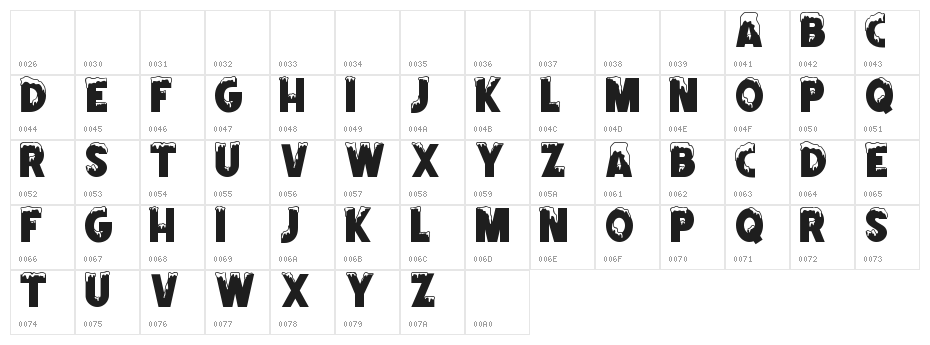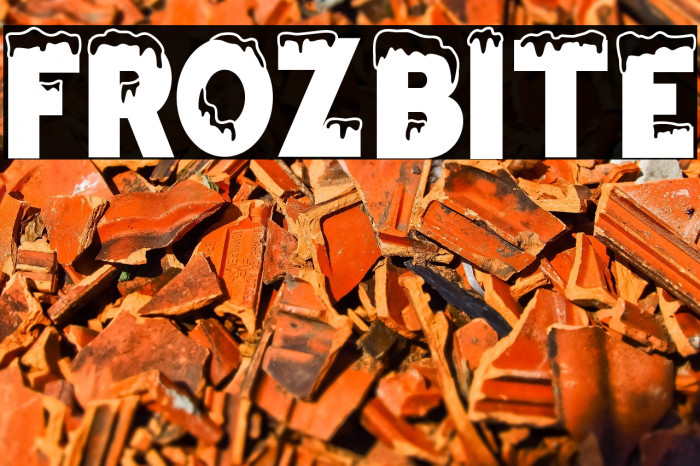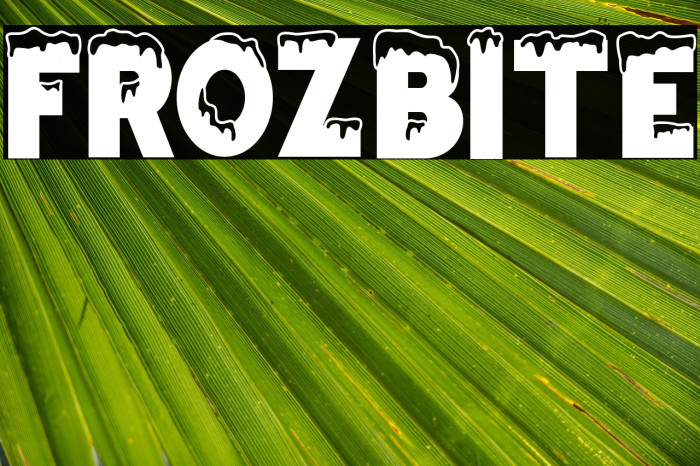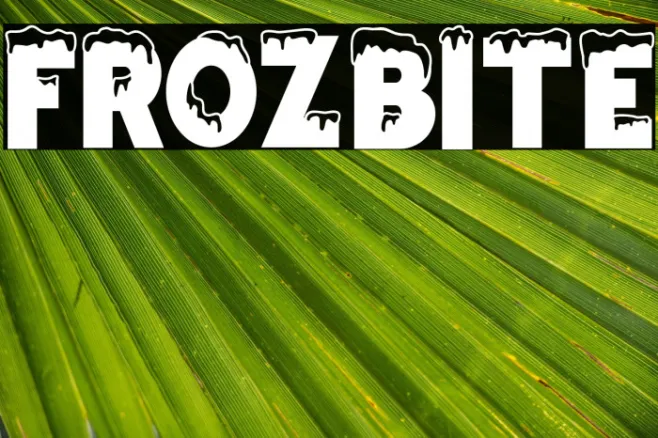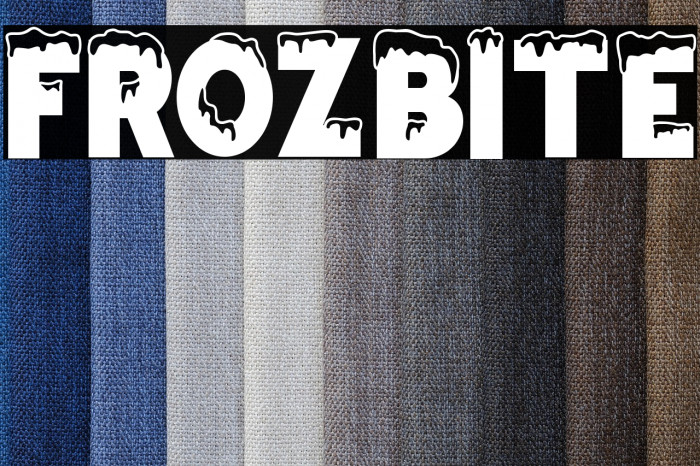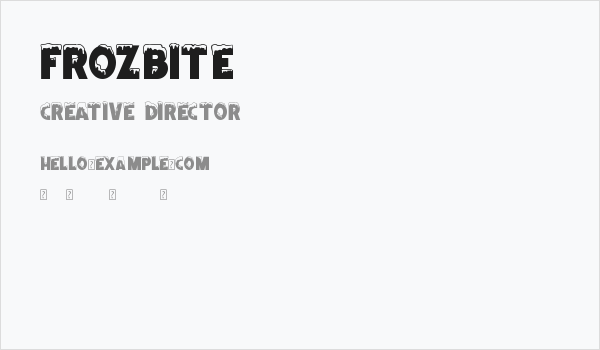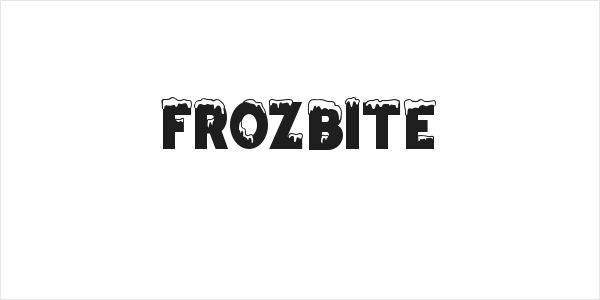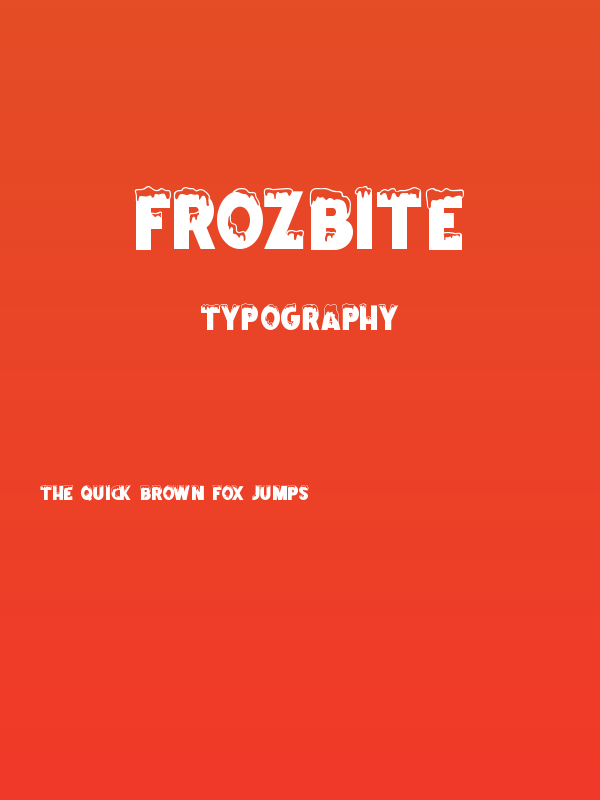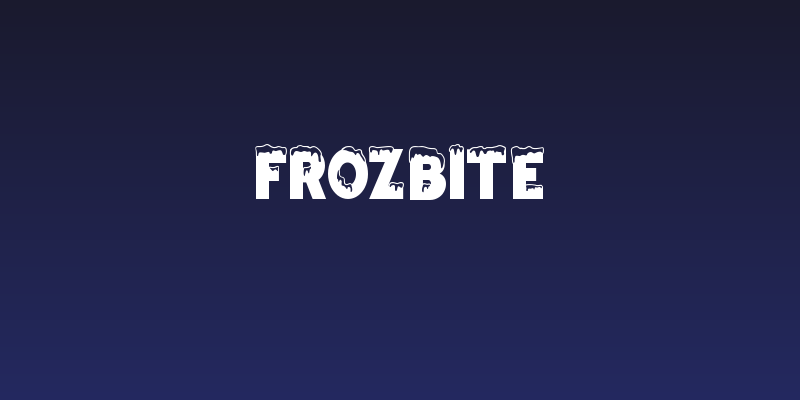
FROZBITE Font
This font features bold, uppercase letters adorned with a playful, frosty design. Each character is topped with a snow-like texture, giving it a wintry, festive appearance. The letters are solid and strong, with a uniform thickness that ensures readability while maintaining a decorative flair. The snow caps add a whimsical touch, making it ideal for holiday-themed projects. The font's design is consistent across all characters, providing a cohesive look that is both eye-catching and fun.